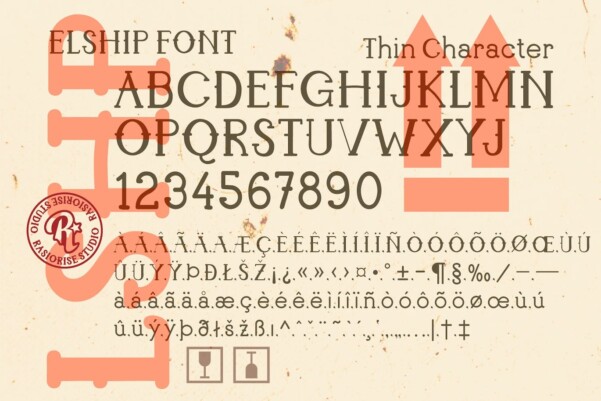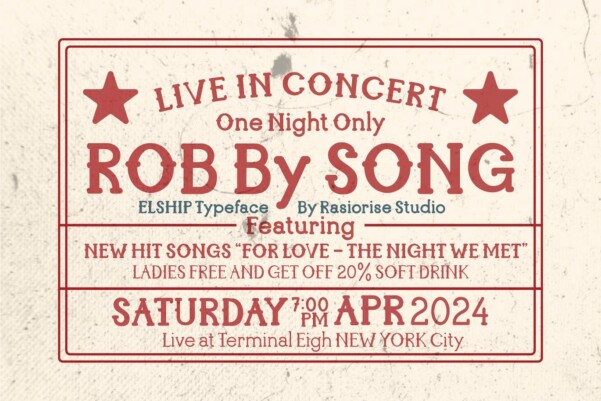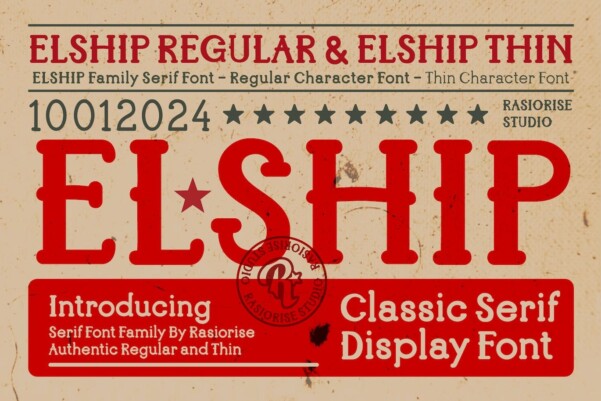
Elship Font
Elship Font has been released for those of you who are looking for a classic Art Deco Serif font style that perfectly suits the contemporary design theme for many projects such as Badge or Emblem Logo, Company Branding. ‘Company or logos.